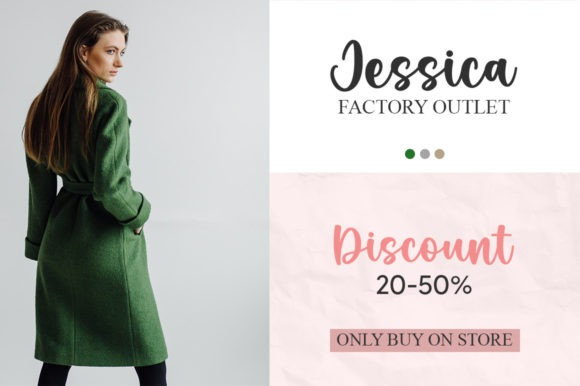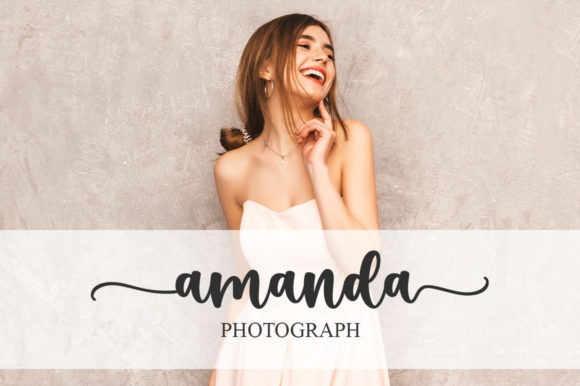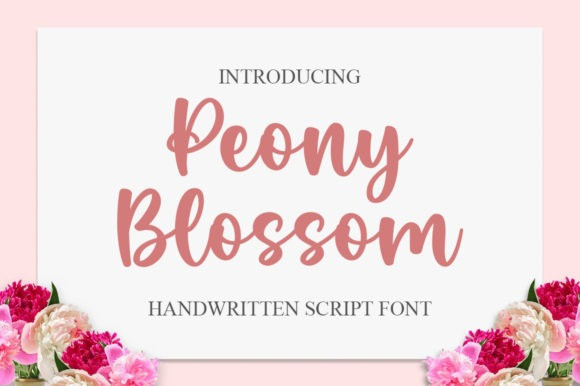
Peony Blossom Font
Peony Blossom Font is a lovely and timeless handwritten font. It is the best choice for creating eye catching logos, branding and quotes. PeonyBlossom is PUA encoded which means you can access all of the glyphs and swashes with ease!